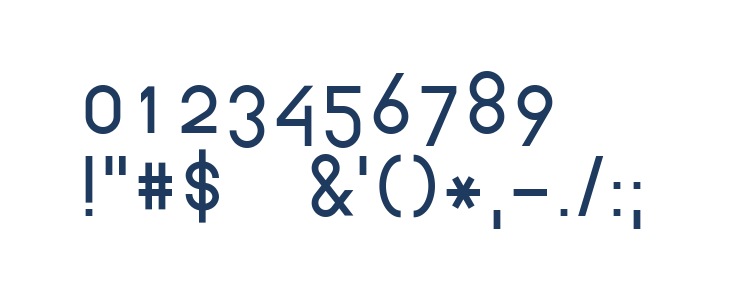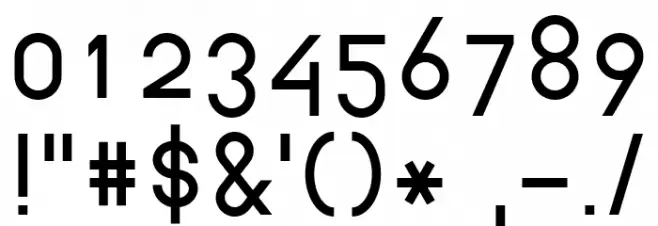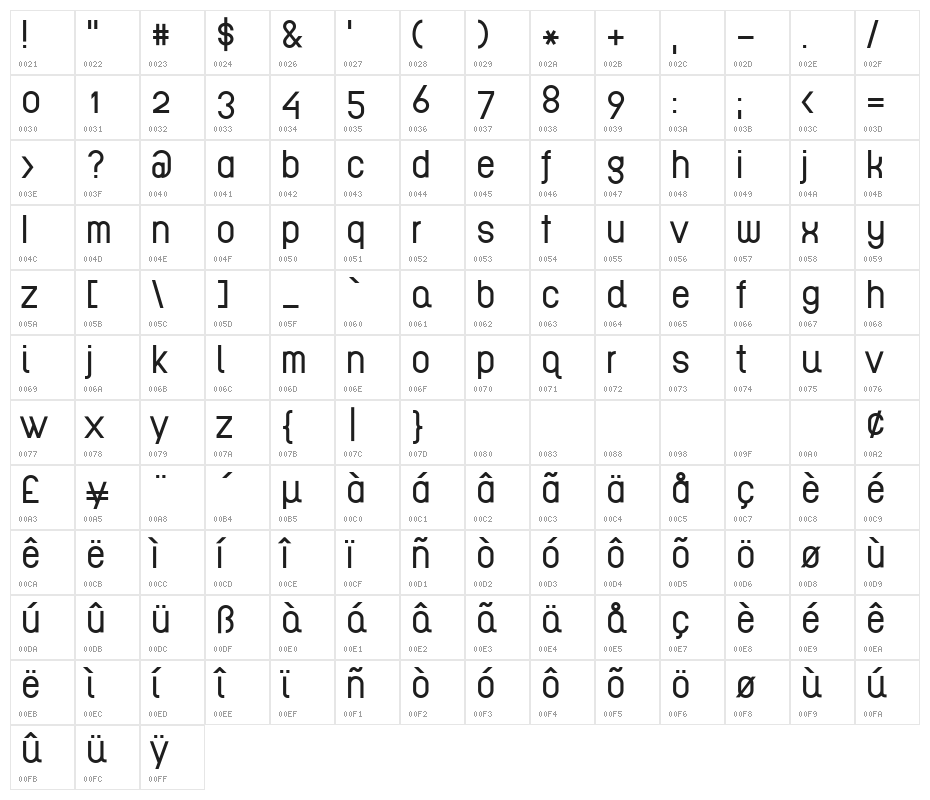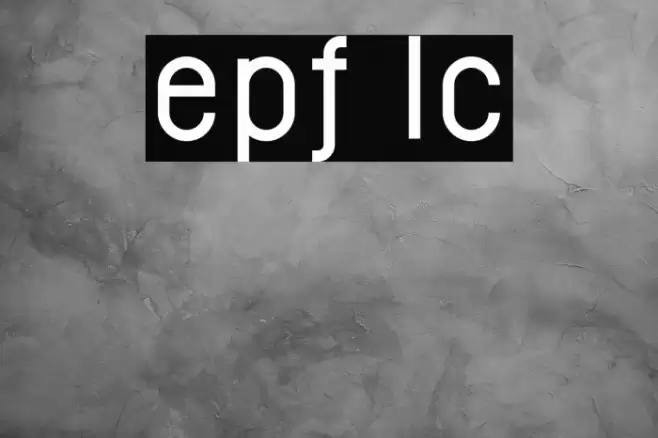
EPF LC Font
EPF LC Description
This font features a clean and modern sans-serif design with uniform stroke widths, giving it a balanced and harmonious appearance. The characters are well-proportioned, with a slight geometric influence that adds to its contemporary feel. The uppercase letters are straightforward and bold, while the lowercase letters maintain a consistent height and spacing, ensuring readability. Numbers are clear and distinct, making them suitable for various applications. The special characters are designed to complement the overall style, maintaining the font's sleek and professional look.
| Proposed Projects | Ideal for digital interfaces, branding, advertising, and editorial design due to its clarity and modern aesthetic. |